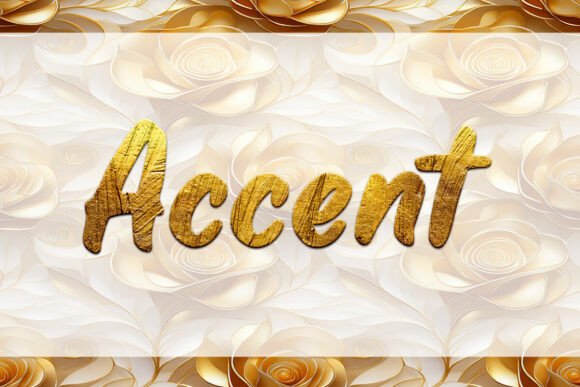
Introducing the Accent Font: Redefining Modern Elegance
In the world of typography, few fonts have made a lasting impact on the design industry. However, the Accent font is one such typeface that has been gaining attention for its unique blend of elegance, fluidity, and versatility. This premium script typeface is designed to capture the essence of a master calligrapher’s brush, bringing a touch of sophistication and refinement to any design project.
The Art of Fluid Motion
The Accent font stands out from traditional static display fonts with its seamless transitions between characters. This distinctive feature creates a rhythmic flow that effortlessly guides the eye across the design, making it perfect for luxury wedding invitations, high-end editorial layouts, and signature-style logos. The fluid motion of the Accent font is reminiscent of a master calligrapher’s brush, bringing an organic and personal touch to any design.
Versatility at Its Core
One of the key strengths of the Accent typeface lies in its versatile anatomy. With its slender lines, it’s ideal for high-end fashion branding, while its substantial structure ensures legibility in complex digital layouts. This adaptability makes the Accent font an excellent choice for designers and crafters looking for a typeface that can be used across various mediums and applications.
The Perfect Marriage of Organic Movement and Digital Precision
The Accent font embodies the perfect blend of organic movement and digital precision. Its elegant, sweeping lines are meticulously crafted to provide a sense of fluidity and dynamism, while its digital precision ensures clarity and legibility. This harmonious balance makes the Accent font an exquisite choice for designers seeking a typeface that can elevate their designs to new heights.
Pairing with Precision
When pairing the Accent font with other typefaces, it’s essential to choose a font that complements its distinct personality. The Accent typeface pairs beautifully with clean, lightweight sans-serifs that don’t compete for the viewer’s attention. This thoughtful pairing creates a harmonious balance between elegance and simplicity, allowing the Accent font to take center stage.
The Accent font offers endless design possibilities for luxury wedding invitations, high-end editorial layouts, and signature-style logos. Its unique blend of elegance, fluidity, and versatility makes it an excellent choice for designers and crafters looking to add a personal touch to their designs. Whether you’re creating a bespoke wedding invitation or a high-end fashion brand, the Accent font is sure to make a lasting impression.
Unlocking Creative Potential
The Accent font is more than just a typeface – it’s a design tool that unlocks creative potential. With its versatility, elegance, and fluidity, designers and crafters can push the boundaries of their creativity, experimenting with new and innovative design concepts. Whether you’re a seasoned designer or an aspiring crafter, the Accent font is an excellent addition to your design arsenal.
In conclusion, the Accent font is a premium script typeface that redefines modern elegance. Its unique blend of fluid motion, versatility, and digital precision makes it an excellent choice for designers and crafters seeking to elevate their designs. With its endless design possibilities and creative potential, the Accent font is sure to become a staple in the world of typography.